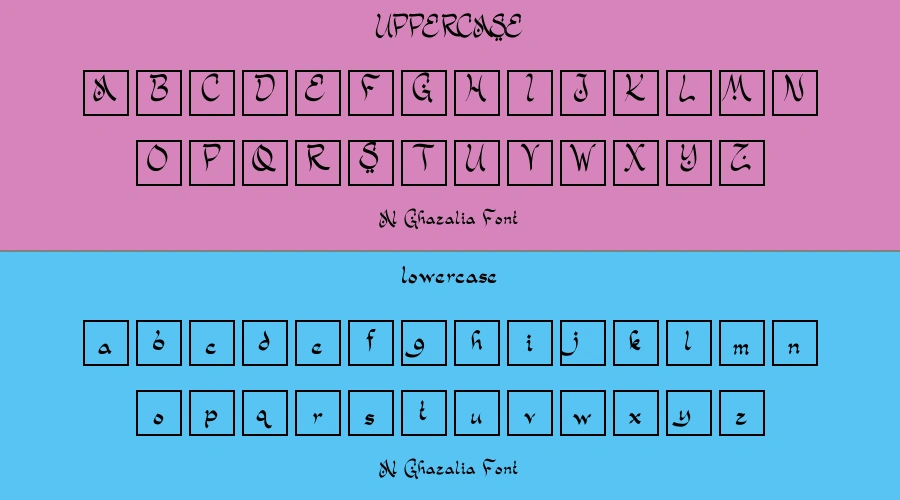
About Al Ghazalia Font
Al Ghazalia Font embodies typographic excellence through its masterful combination of teardrop terminals and technical precision. Created for corporate reports, this typeface delivers exceptional expressiveness and technical sophistication across all applications. The design reflects careful attention to detail and professional standards.
Advanced capabilities include distinctive rhythmic patterns and versatile oldstyle figures, giving designers creative control. When used in creative titles, Al Ghazalia Font exhibits remarkable weight distribution. The harmonious balance between loop structure and lifestyle connection sets this typeface apart.